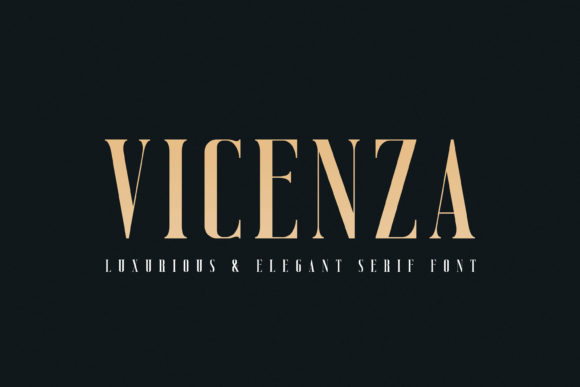
Behold, the Vicenza Font - a ravishing serif font adorned with timeless beauty and audacious elegance. Its striking presence will elevate your designs to dizzying heights, leaving your audience spellbound. This font is not just a mere collection of letters; it's a symphony of artistry, a masterpiece that will ignite your creativity and set your projects ablaze with brilliance.
With Vicenza Font by your side, you'll embark on a typographic adventure like never before. Its meticulously crafted curves and sharp edges dance harmoniously, creating a visual spectacle that will leave you breathless. Whether you're crafting vintage t-shirt designs, retro posters, or sophisticated logos, Vicenza Font will effortlessly elevate your creations to the realm of the extraordinary.
Imagine your audience's eyes widening with awe as they behold your designs adorned with the Vicenza Font. Its bold strokes and graceful flourishes will command attention, leaving an indelible mark on their minds. From the moment they lay their eyes upon your creations, they'll be captivated by the sheer elegance and sophistication that the Vicenza Font exudes.
But the Vicenza Font is more than just a pretty face. It's a versatile chameleon that effortlessly adapts to your every creative whim. Its characters possess an inherent charm that lends itself seamlessly to a myriad of design styles. Whether you're drawn to the allure of vintage aesthetics, the allure of modern minimalism, or the boundless possibilities of experimental design, Vicenza Font will effortlessly conform to your vision, becoming an integral part of your creative tapestry.
So, why settle for ordinary fonts that blend into the background when you can unleash the captivating power of the Vicenza Font? This font is your gateway to design greatness, a key that unlocks a world of endless possibilities. Embrace the Vicenza Font today and witness the transformation of your designs into breathtaking works of art.